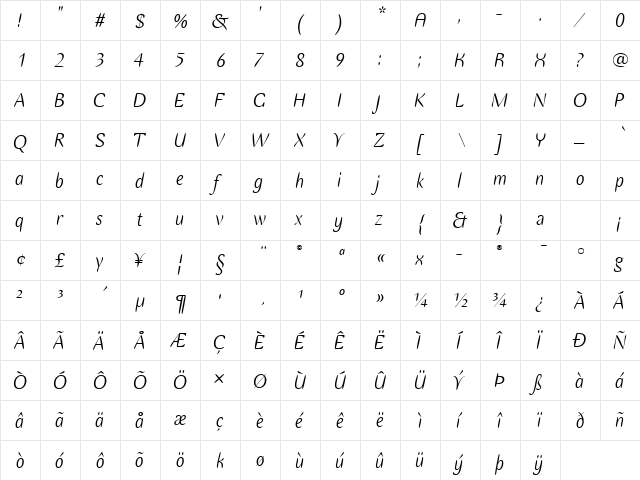
Ellipse ITC TT Italic Font Preview
Ellipse ITC TT Italic
Ellipse ITC TT Italic Font Details
Design Context for Ellipse ITC TT Typeface
Ellipse ITC TT offers clean, dependable letterforms without strong stylistic allegiance, making it a practical choice for designers who need flexibility. The slanted form adds forward momentum and visual energy.
Pro Tip: Try Ellipse ITC TT for annotation and caption copy alongside an upright companion — the contrast in angle creates a dynamic but ordered typographic system.